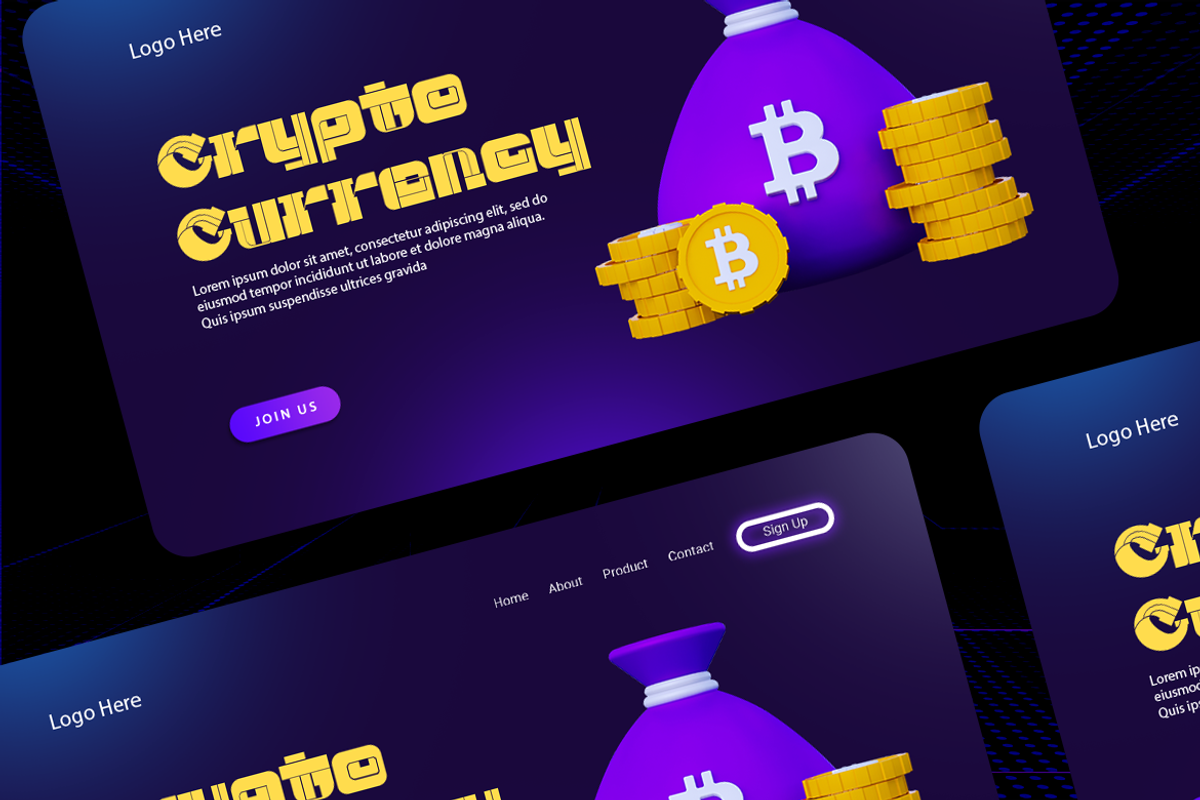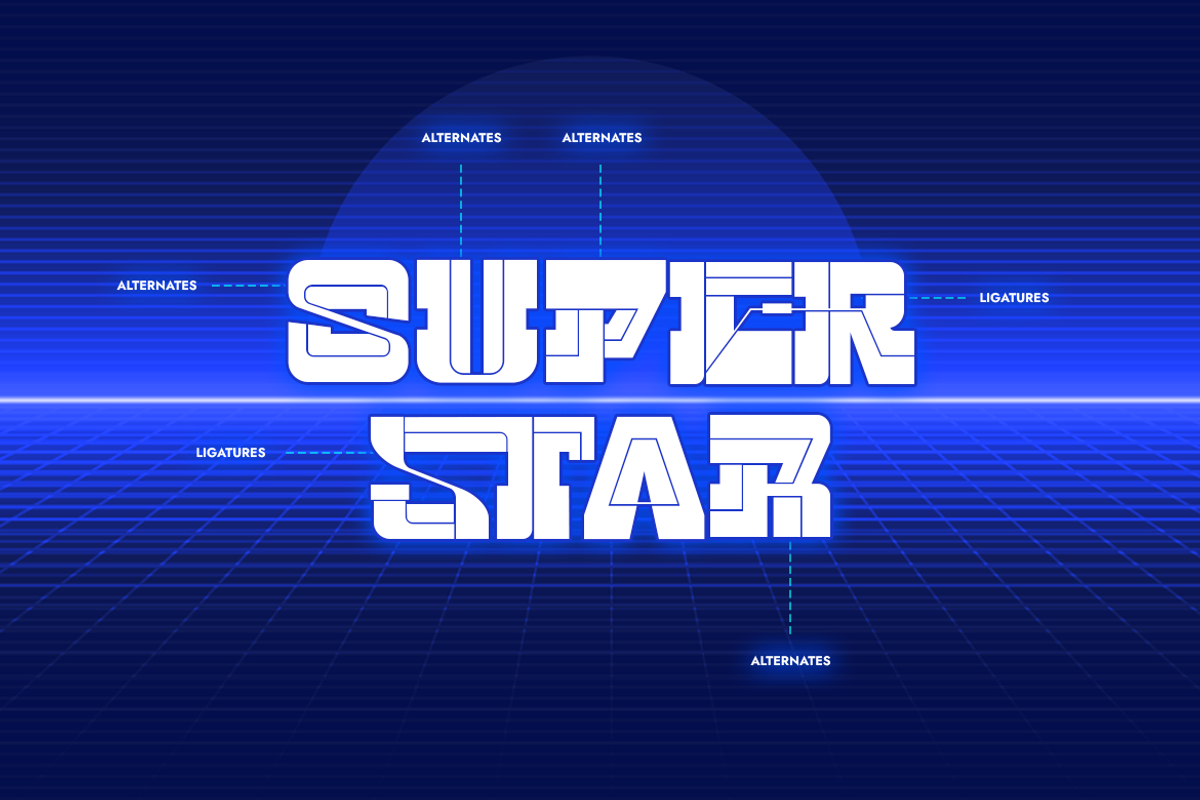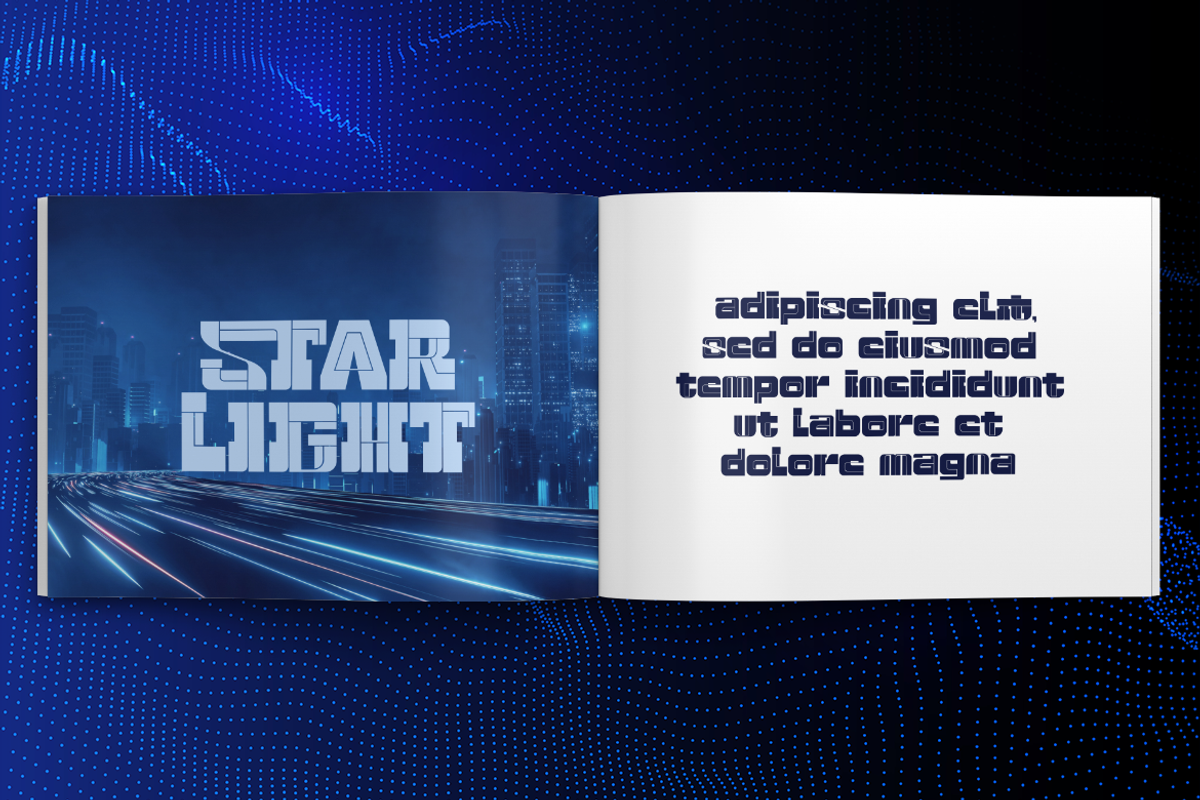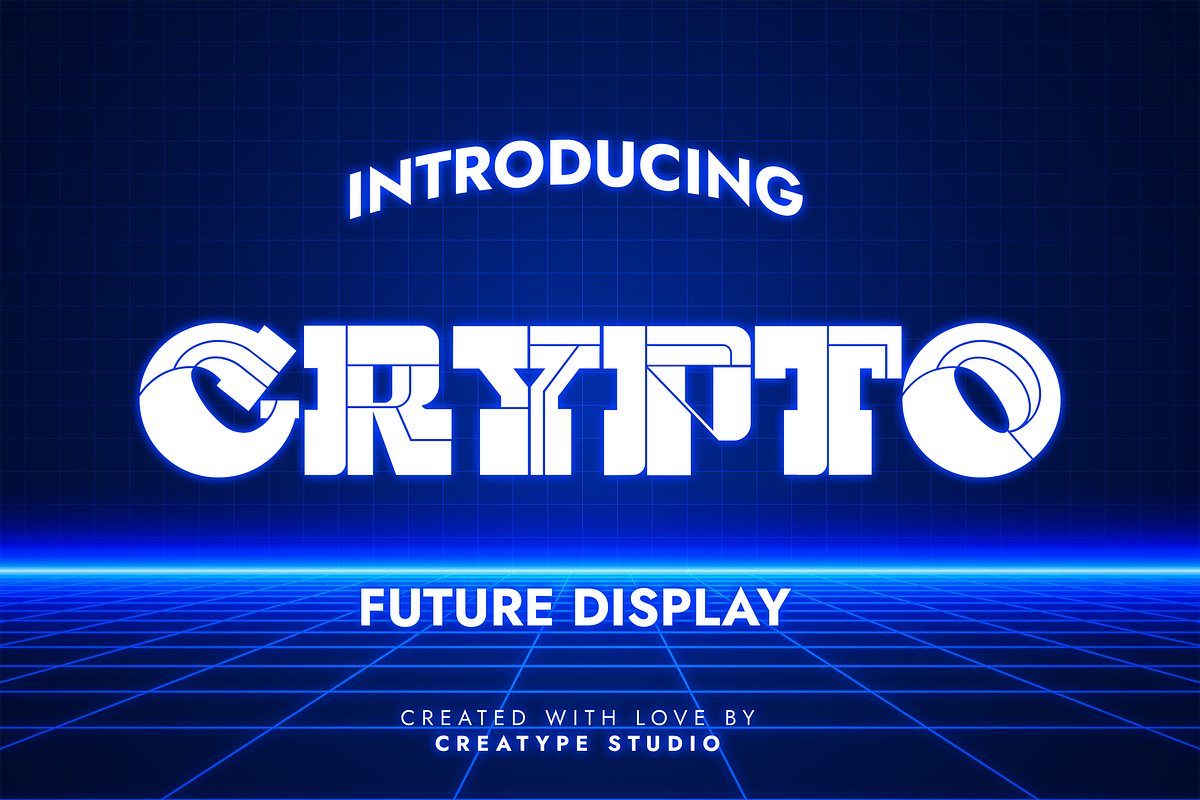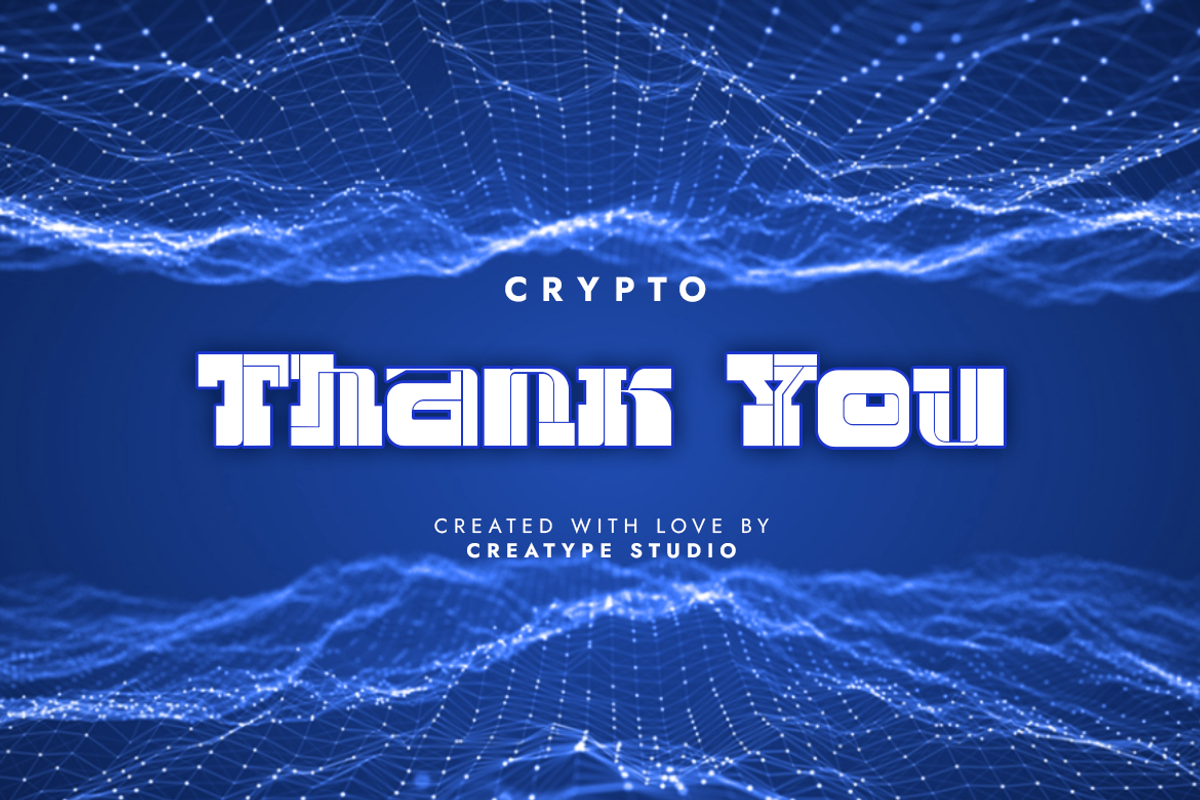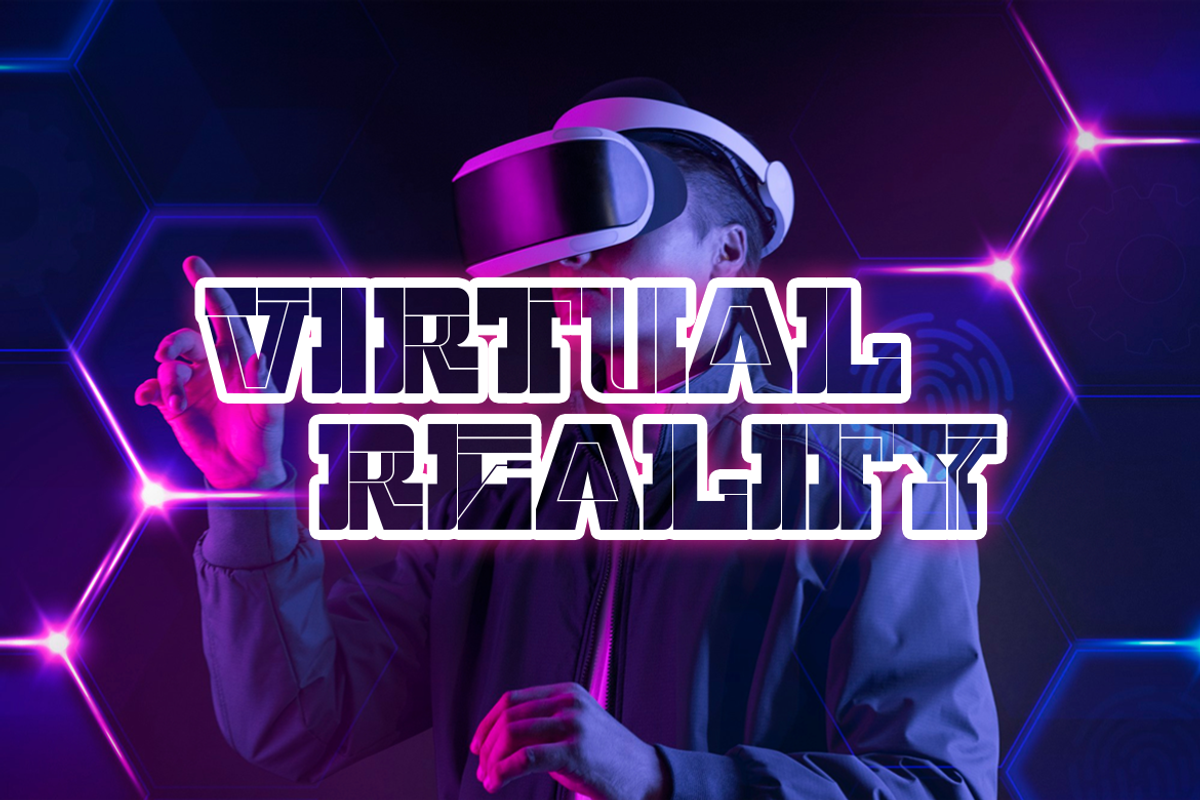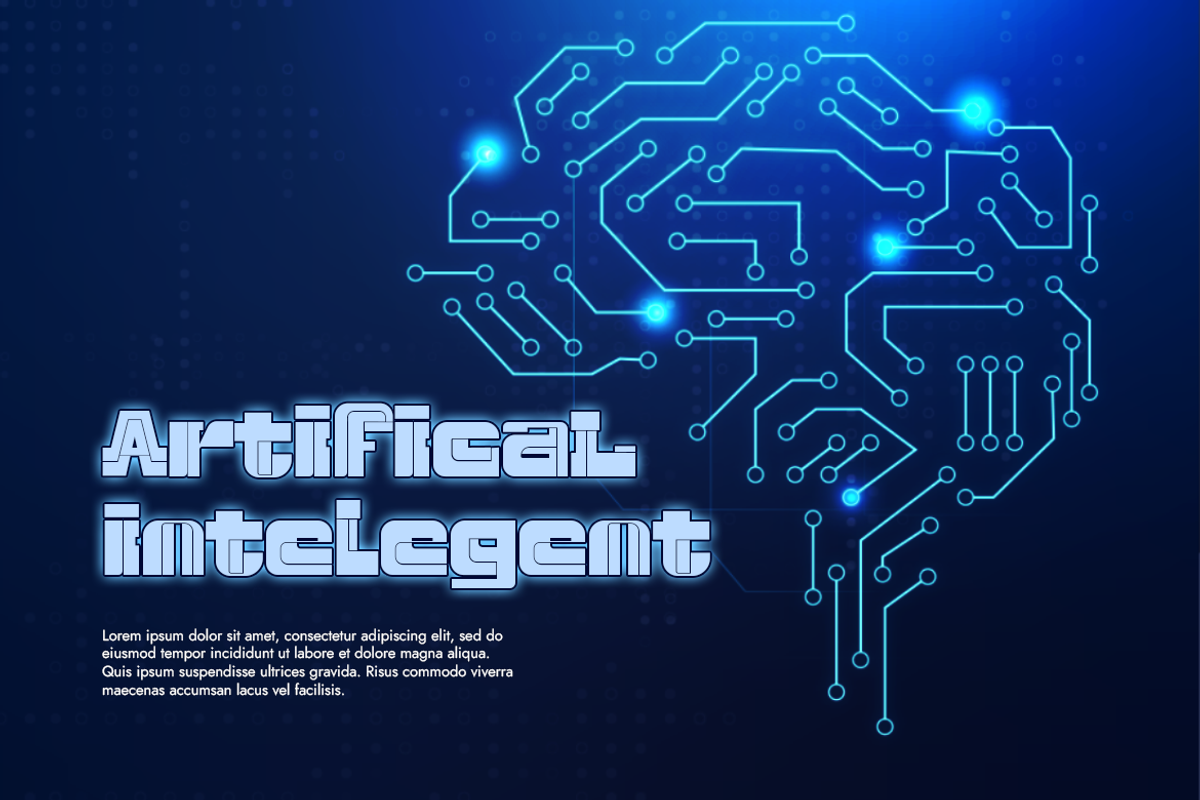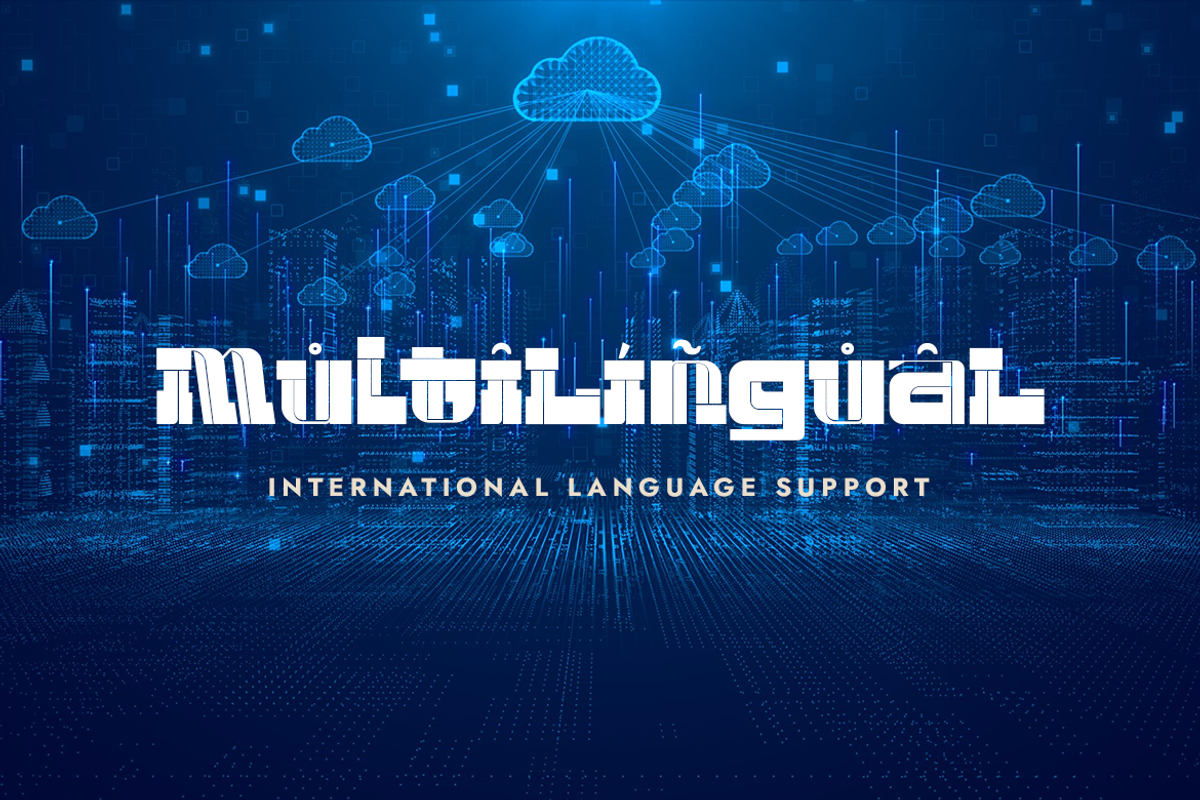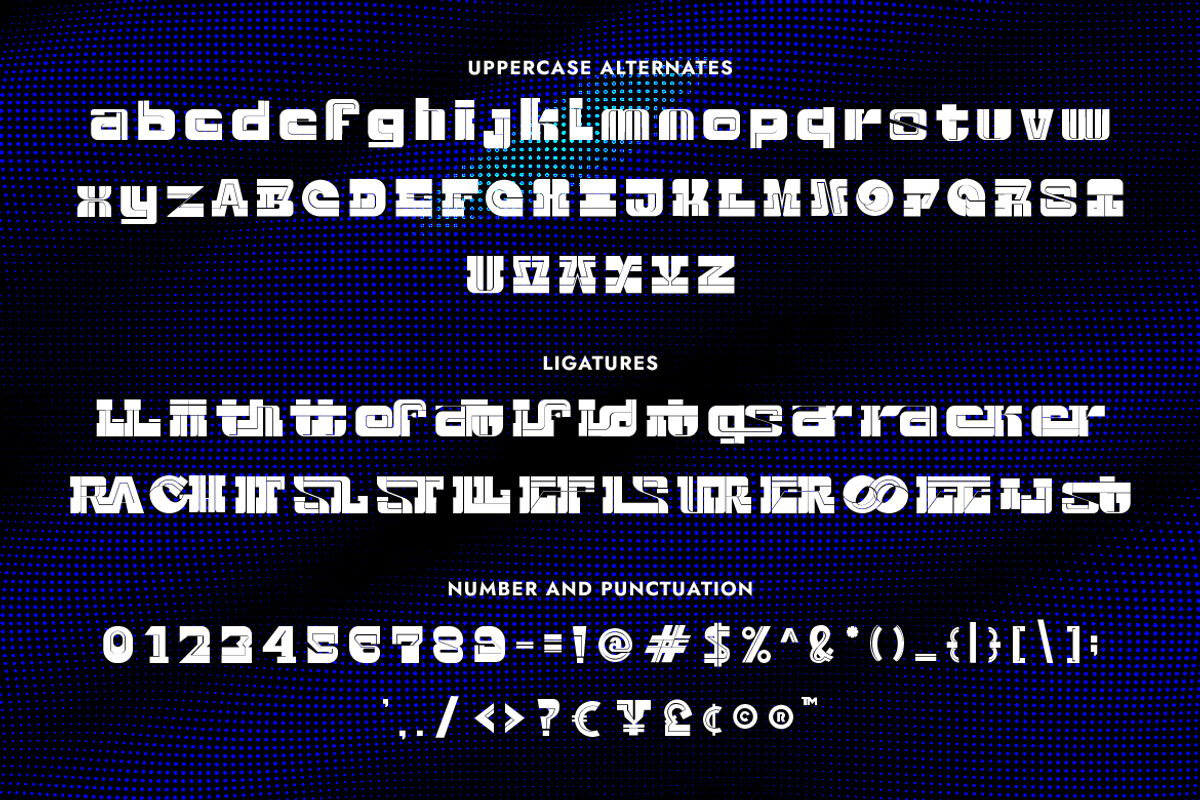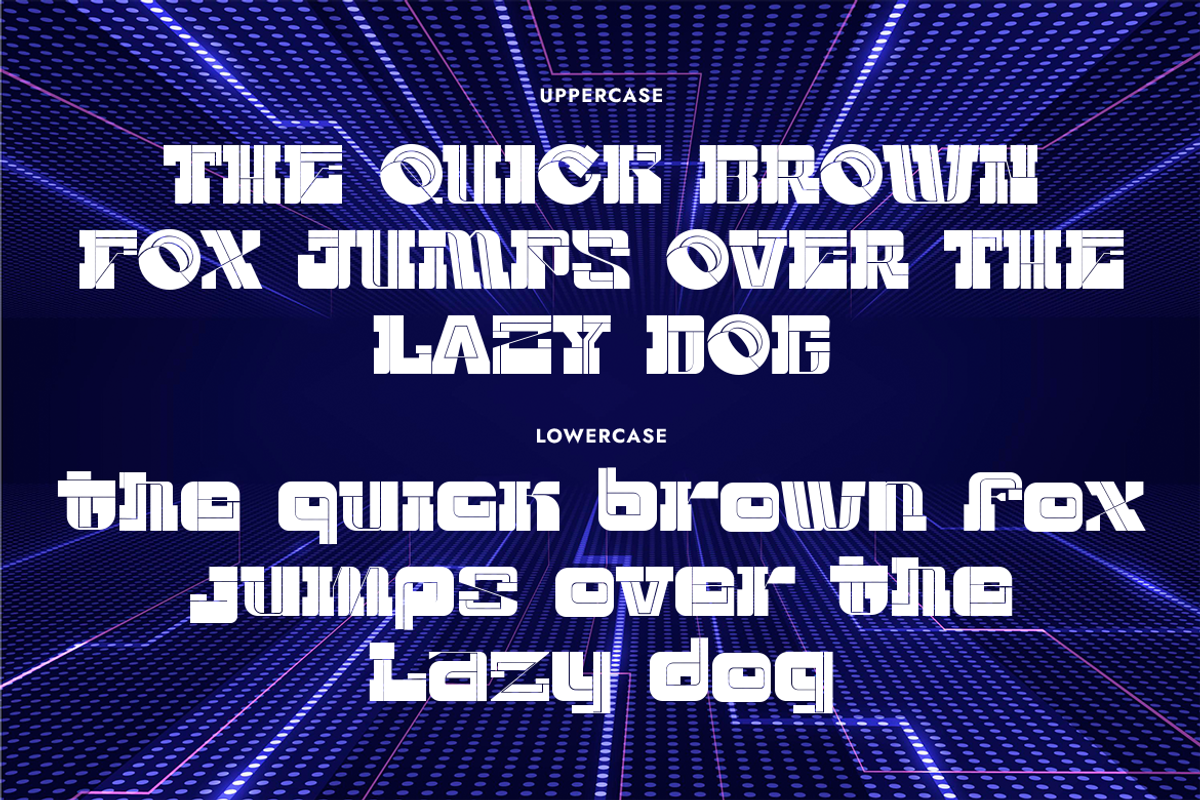
Crypto Future Display
Crypto the Future Display typeface, is a modern and futuristic level of typeface. Show the futuristic side of your projects with Crypto.
Crypto is perfect for branding projects, logos, wedding designs, social media posts, advertisements, product packaging, product designs, label, photography, watermark, invitation, stationery, and any projects that need handwriting taste.
- Ligature & Alternate